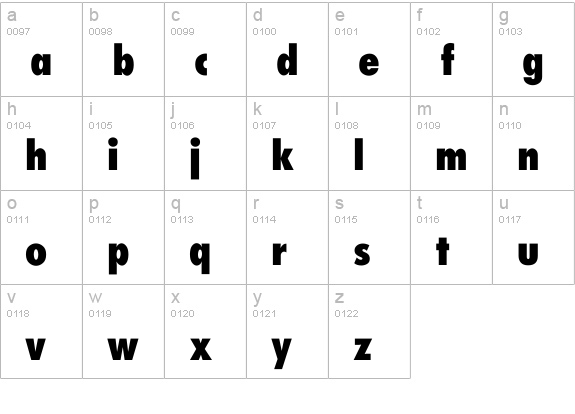
Fujix_ExtraBold-Normal Font Details
Fujix_ExtraBold-Normal is the standard, neutral variant in the Fujix_ExtraBold typeface family \xE2\x80\x94 well suited to general body text, paragraphs, and standard typographic work.